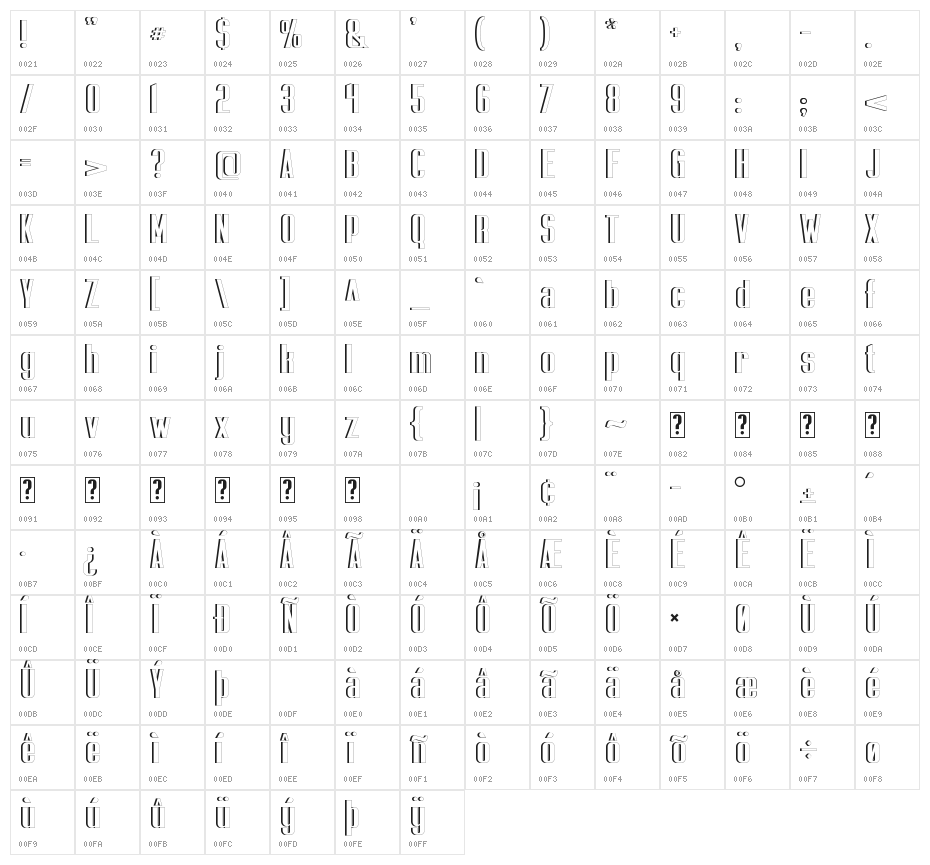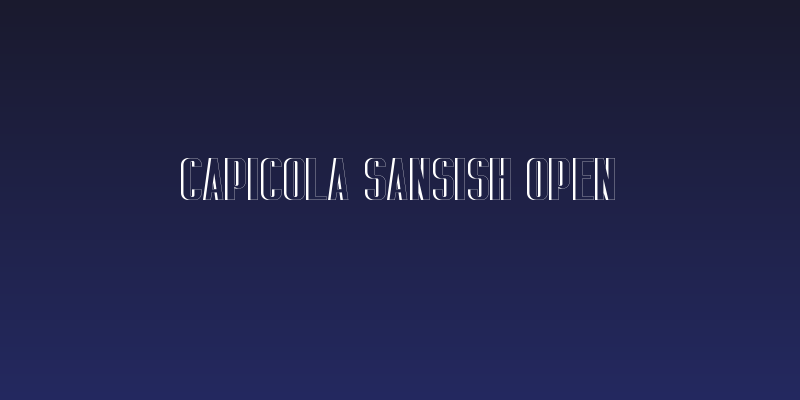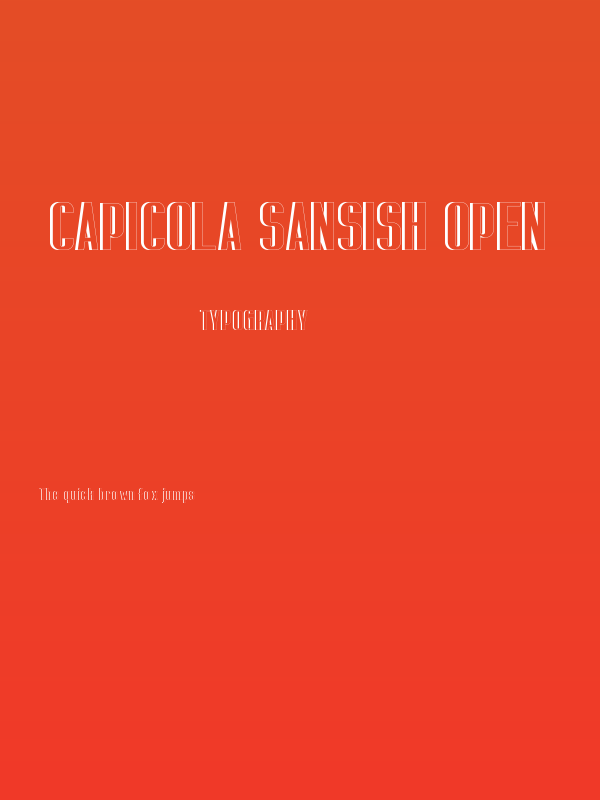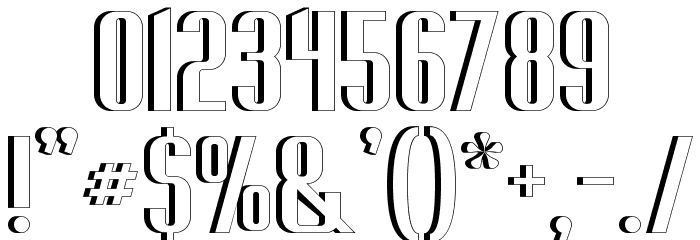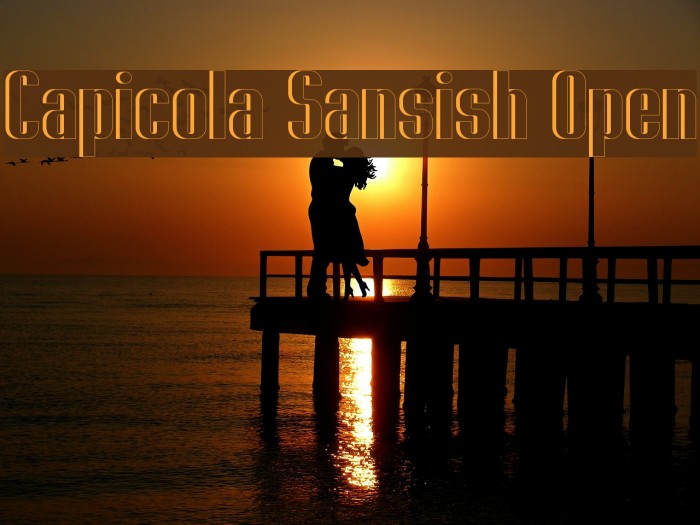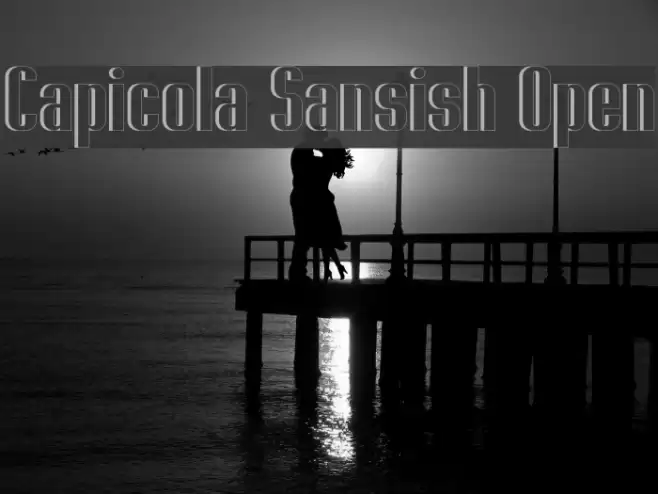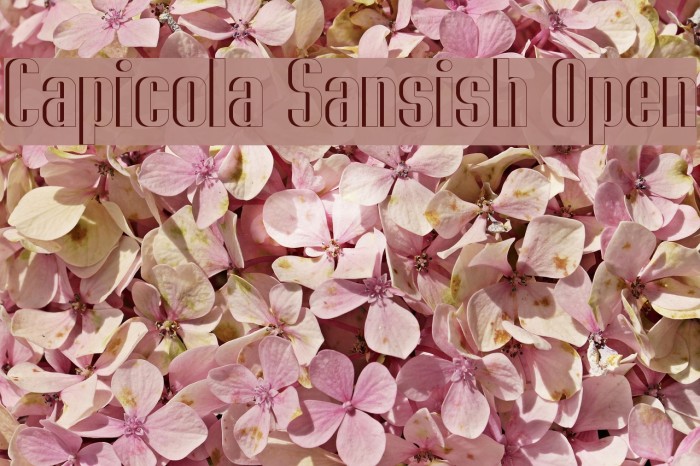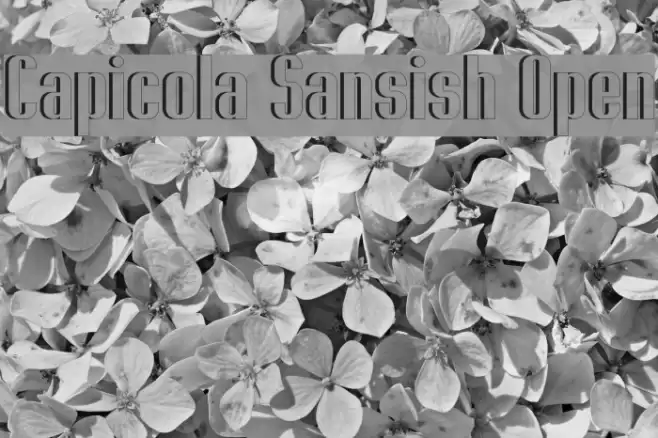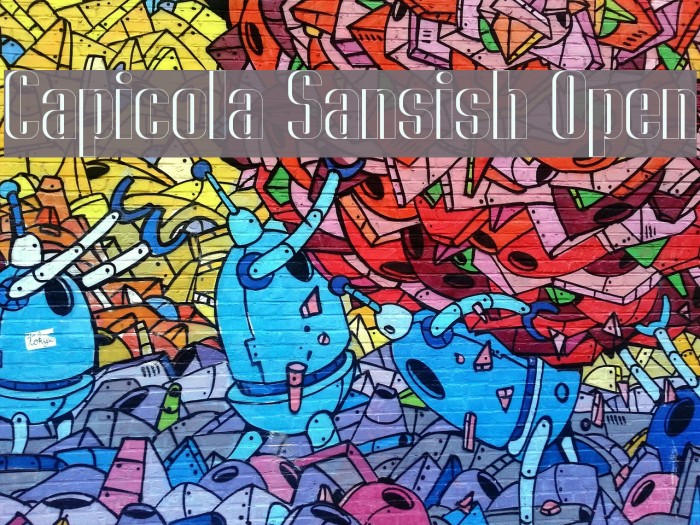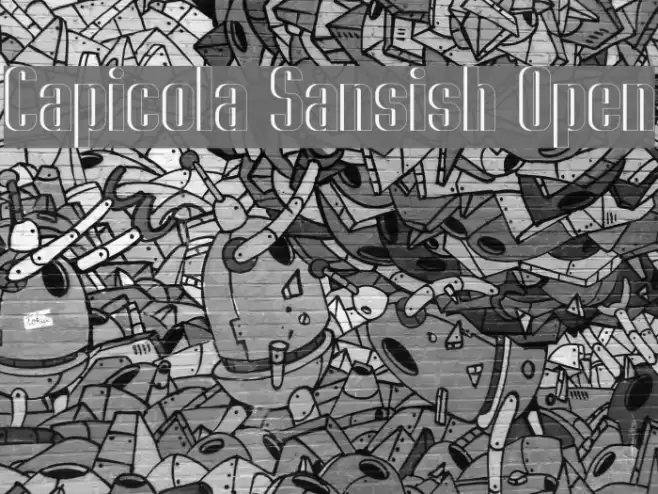
Capicola Sansish Open Font
Capicola Sansish Open Description
This font features a modern and bold design with a unique open outline style. The characters are tall and narrow, giving them a condensed appearance. The uppercase and lowercase letters maintain a consistent height ratio, while the numbers and special characters follow the same stylistic approach. The open outlines provide a sense of depth and dimension, making the font stand out. The clean lines and geometric shapes contribute to its contemporary look, making it suitable for eye-catching designs.
| Proposed Projects | Ideal for branding, posters, headlines, and any design requiring a striking, modern typeface. |